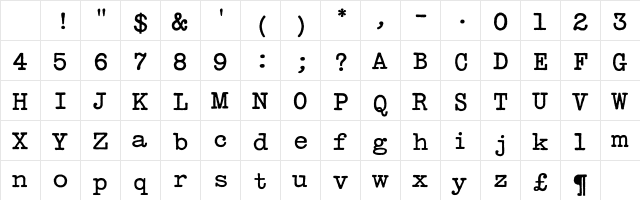
Typewriter is built around its visual character rather than neutral utility - its distinctive forms are designed to make an impression at display sizes.
Font Pairing: Pair with a clean neutral sans-serif for body copy to let Typewriter's character lead without overwhelming the composition.
Pro Tip: Use Typewriter exclusively at display sizes - it was designed to be seen, not read at length. Let a neutral companion handle body copy.